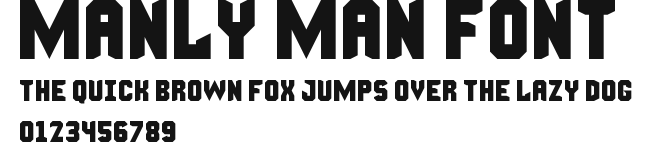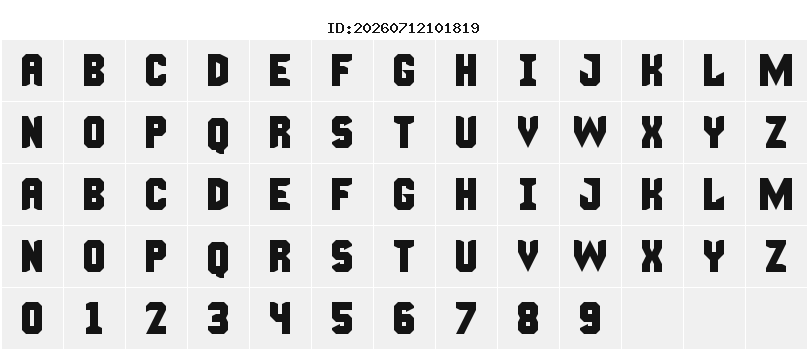
Manly Man Font Preview
• Font Name: Manly Man Font
• Full Font Name: Manly Man Font Regular
• Designer: NAL
• Description: “Manly Man Font” was built with FontStruct
About Manly Man Font.ttf
Manly Man Font.ttf is a modern, elegant sans-serif font designed for ultimate readability and visual harmony. Perfect for branding, headlines, web design, and print materials.